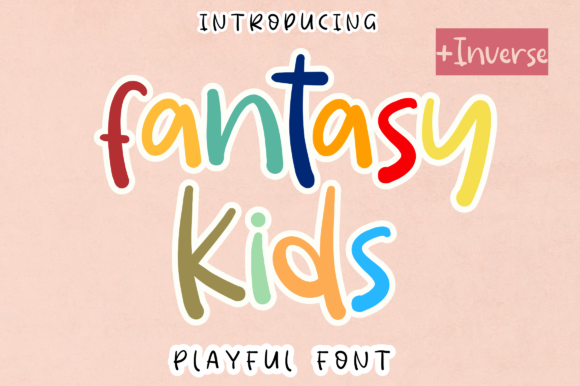
Embark on a whimsical journey with Fantasy Kids Font, a captivating script font family meticulously designed by Erlina Graphic. This playful and quirky handwritten font is an enchanting delight that promises to infuse your designs with a touch of magic and wonder.
Immerse yourself in a world of endless creativity as you explore the limitless possibilities that Fantasy Kids Font presents. Its charming characters, reminiscent of a child's imagination, will captivate your audience and leave a lasting impression. Perfect for business flyers, this font exudes professionalism while maintaining a touch of whimsy, setting your brand apart from the ordinary.
With Fantasy Kids Font, you hold the key to unlocking a realm of enchanting possibilities. Let your imagination soar as you craft eye-catching designs that resonate with your audience. Its versatility allows you to effortlessly transform your ideas into captivating creations that will enchant and inspire.
Unleash the boundless potential of Fantasy Kids Font and elevate your designs to new heights. Its playful nature blends seamlessly with a touch of sophistication, making it the perfect choice for businesses seeking to establish a strong and memorable brand identity. Embrace the magic of Fantasy Kids Font and embark on a creative adventure that knows no bounds.